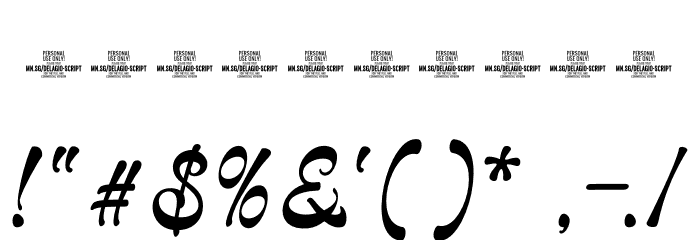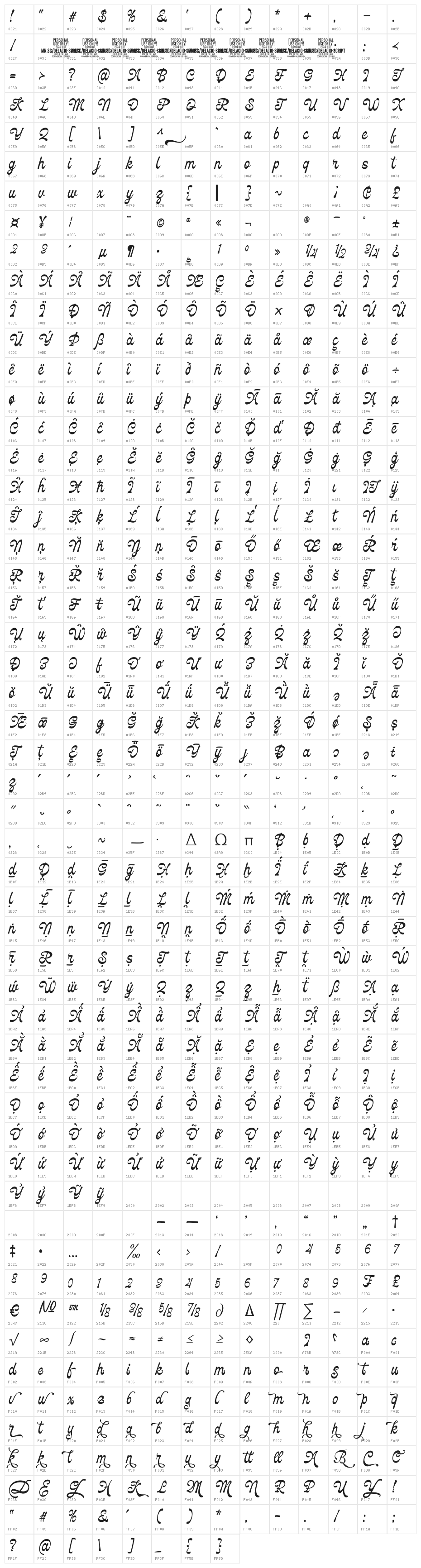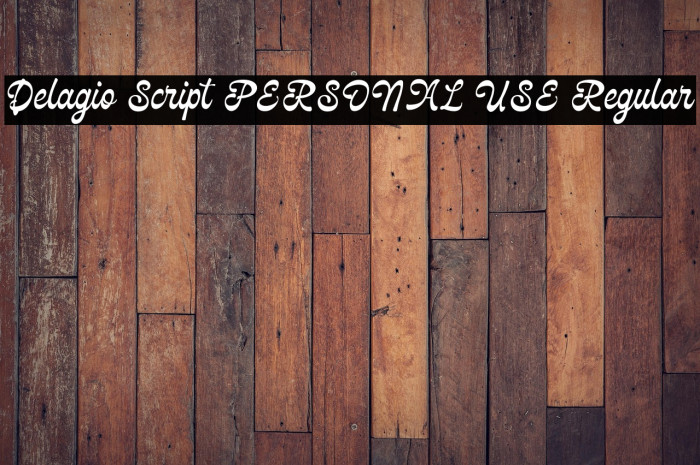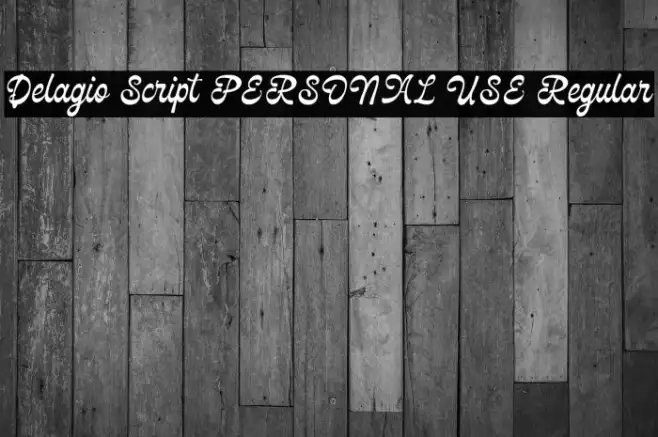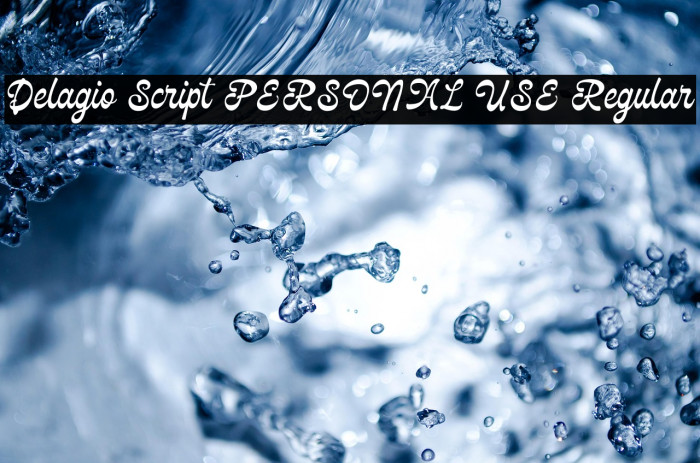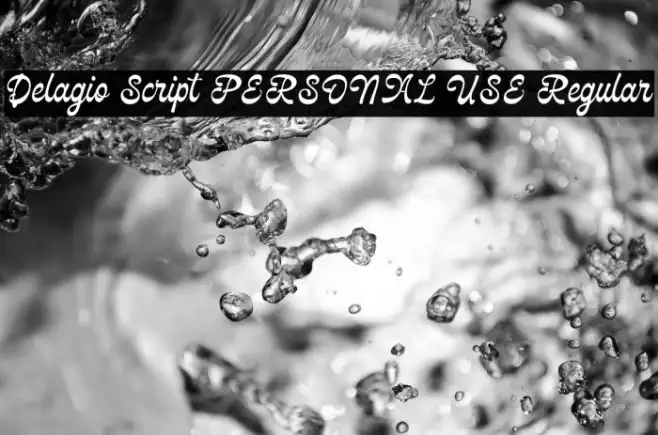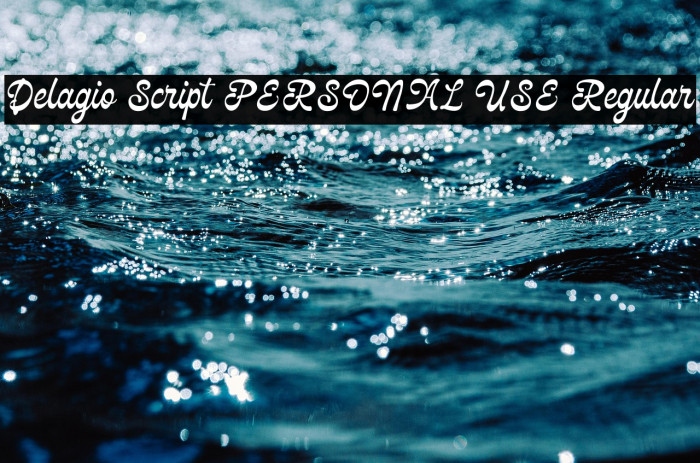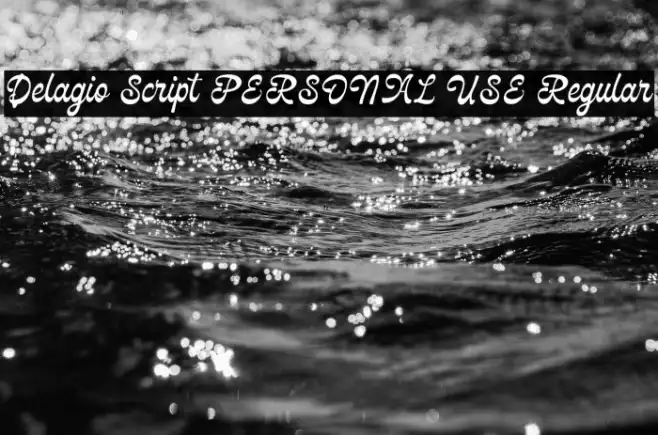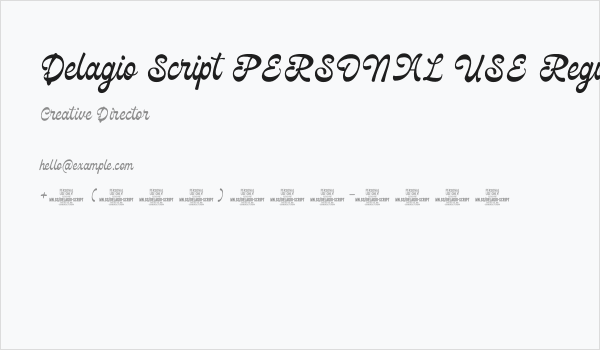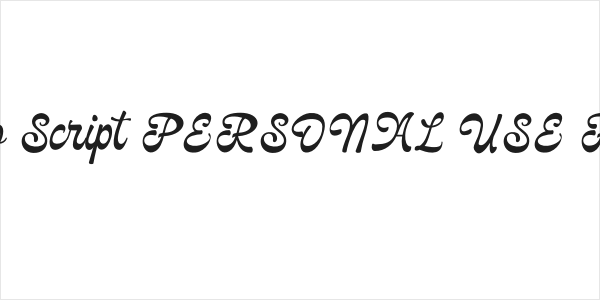
Delagio Script PERSONAL USE Regular Font
Delagio Script PERSONAL USE Regular Description
This font features a flowing, cursive style that exudes elegance and sophistication. The characters are interconnected, creating a seamless and fluid appearance. The uppercase letters are bold and prominent, while the lowercase letters maintain a consistent flow with gentle curves and loops. The numerals and special characters are designed to match the script's overall aesthetic, ensuring a cohesive look. This font is ideal for projects that require a touch of class and refinement, such as invitations, branding, and decorative designs.